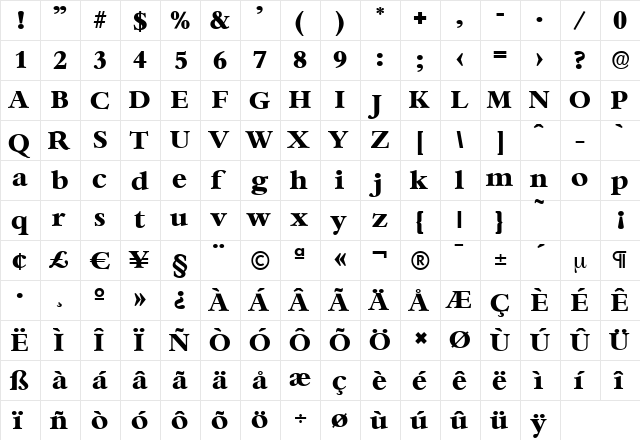
BernsteinSerial-Xbold Regular
Design Context for BernsteinSerial-Xbold Typeface
BernsteinSerial-Xbold takes a measured approach to typography — its balanced proportions and neutral character make it a reliable workhorse for both digital and print work. The heavy weight commands attention and anchors typographic hierarchies.